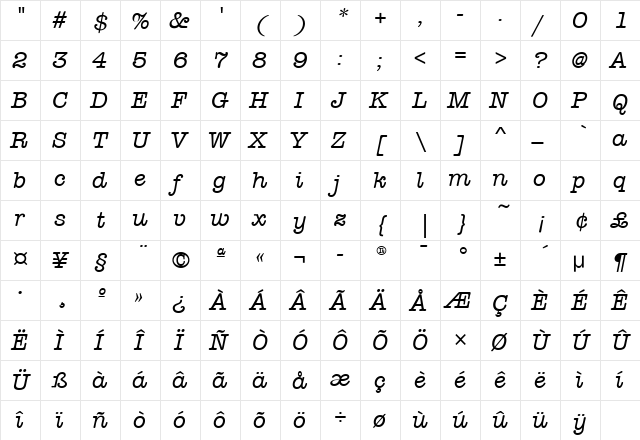
AmTypewriterMdITC Italic Font Preview
| Foundry | E+F Designstudios. ITC American Typewriter is a registered trademark of International Typeface Corporation |
Design Context for AmTypewriterMdITC Typeface
AmTypewriterMdITC brings the precise, column-aligned rhythm of monospaced typography to designs that value technical clarity and systematic order. Its italic angle brings a sense of urgency and motion to the letterforms.